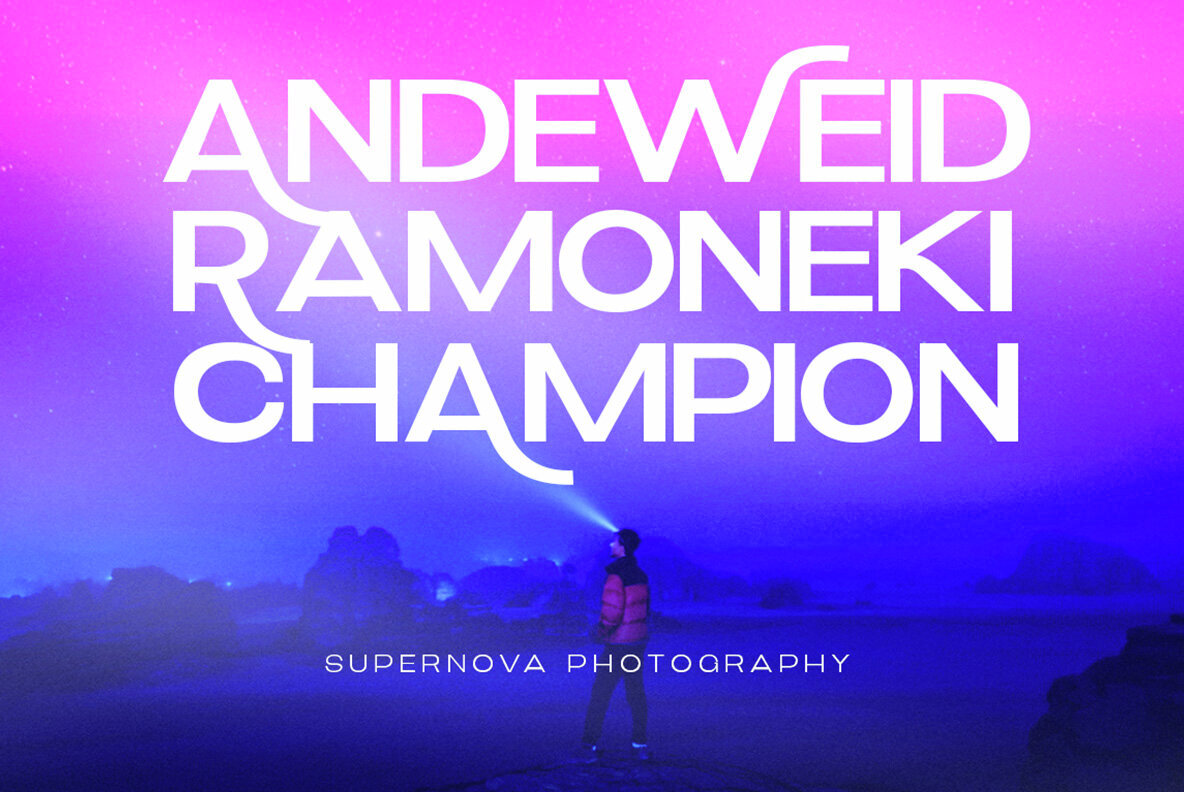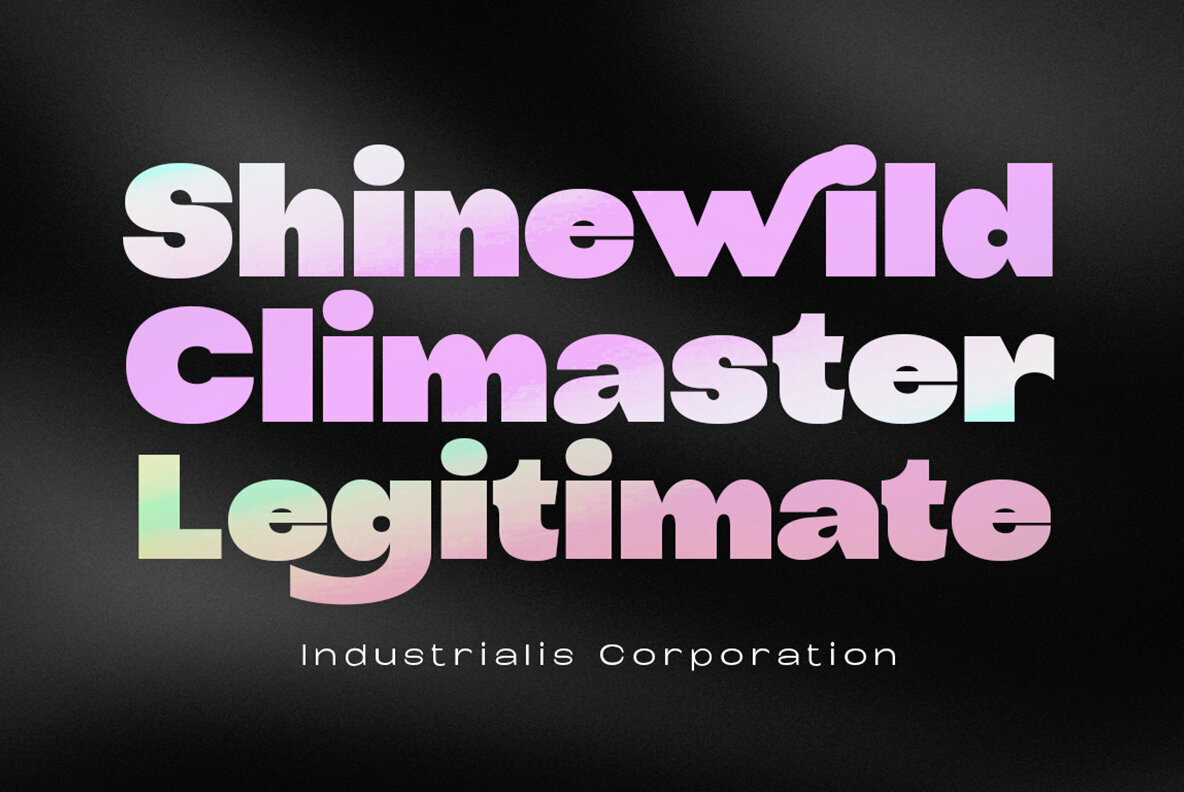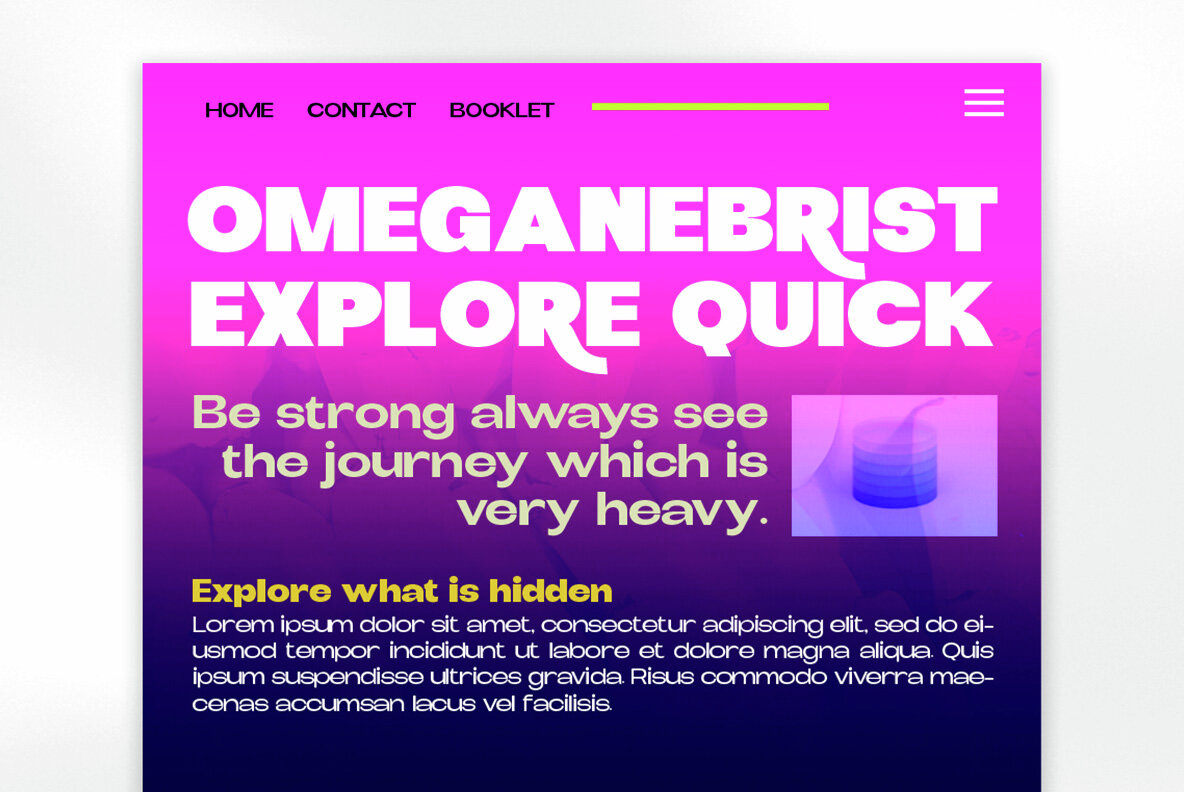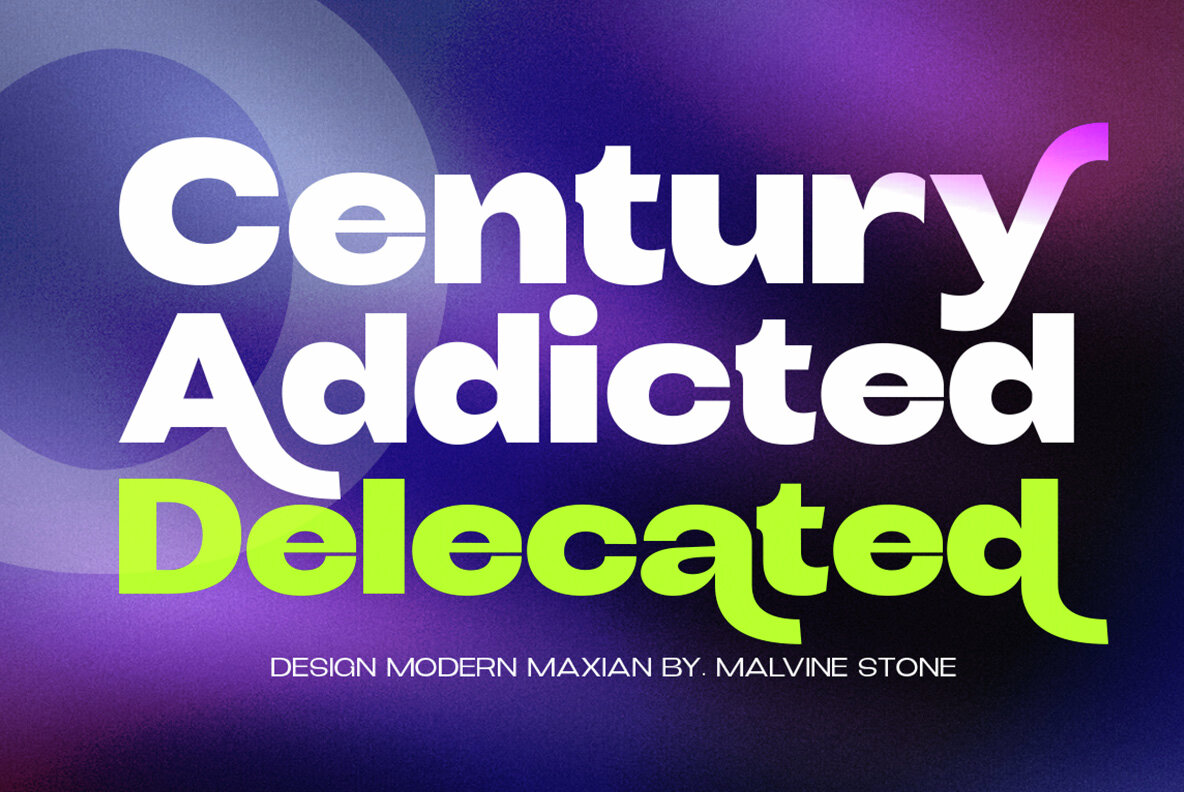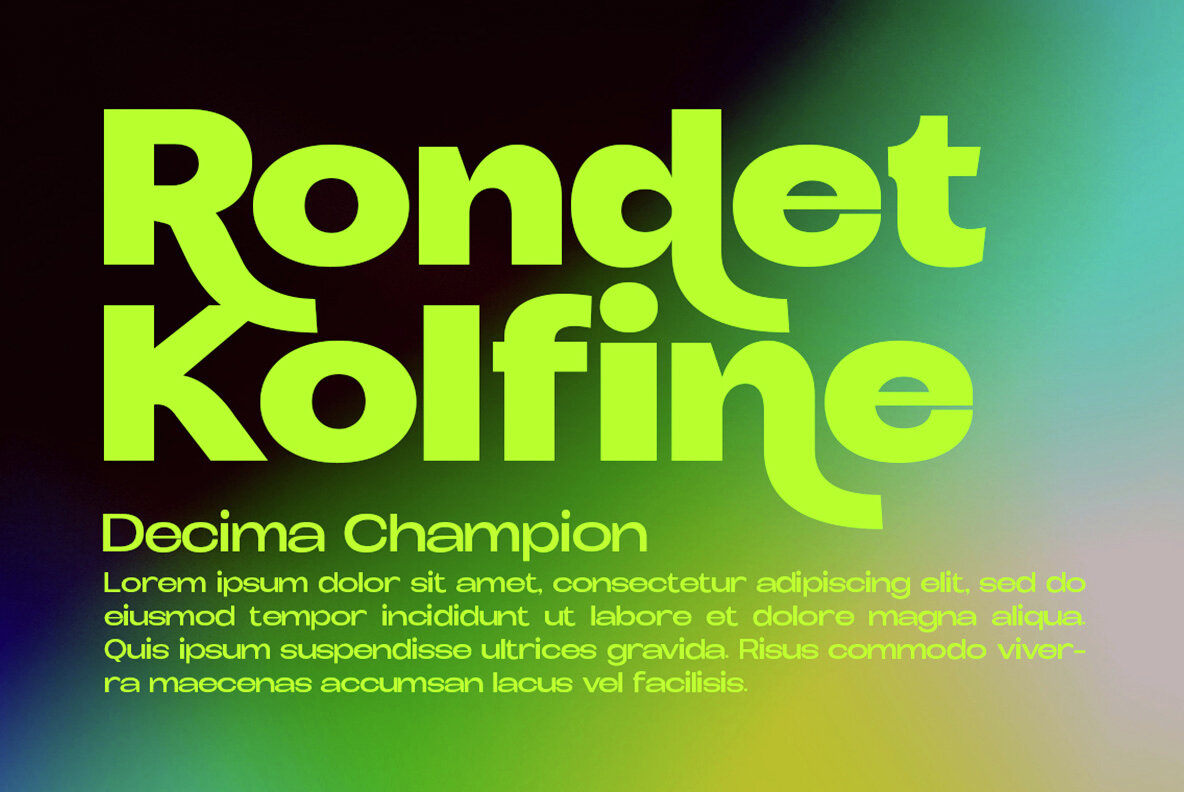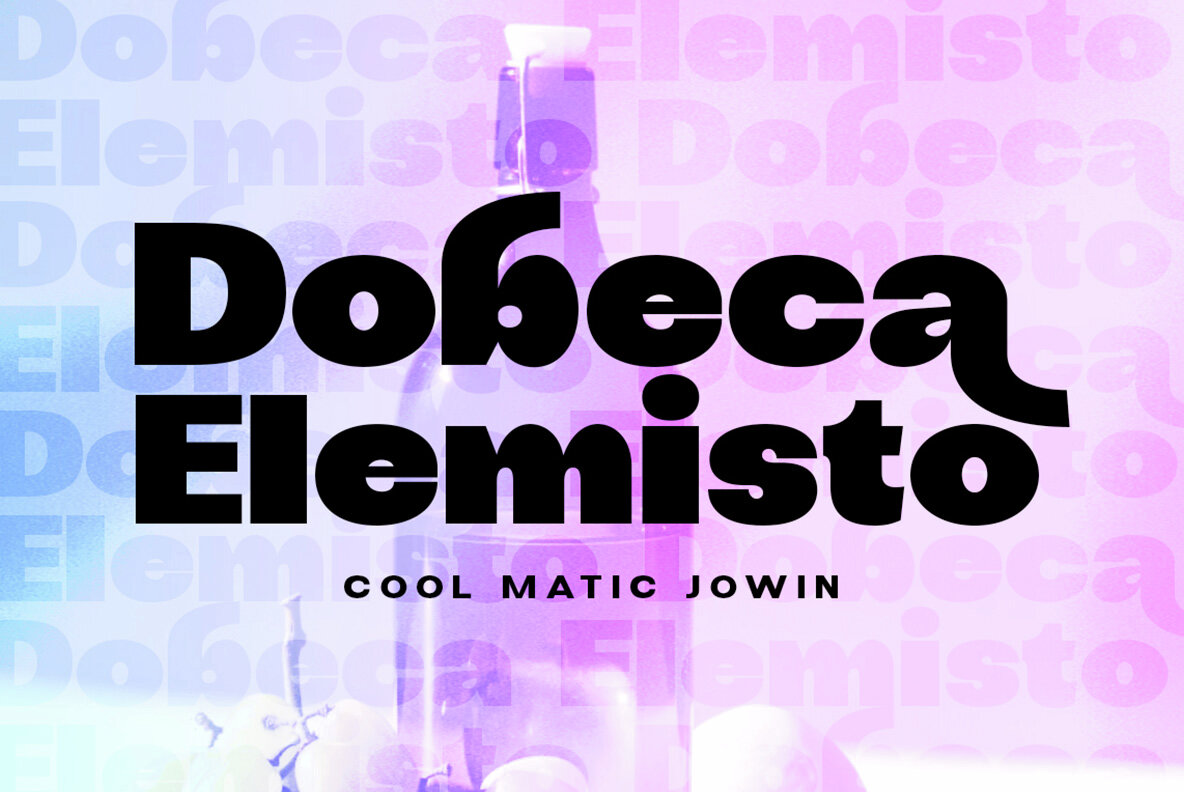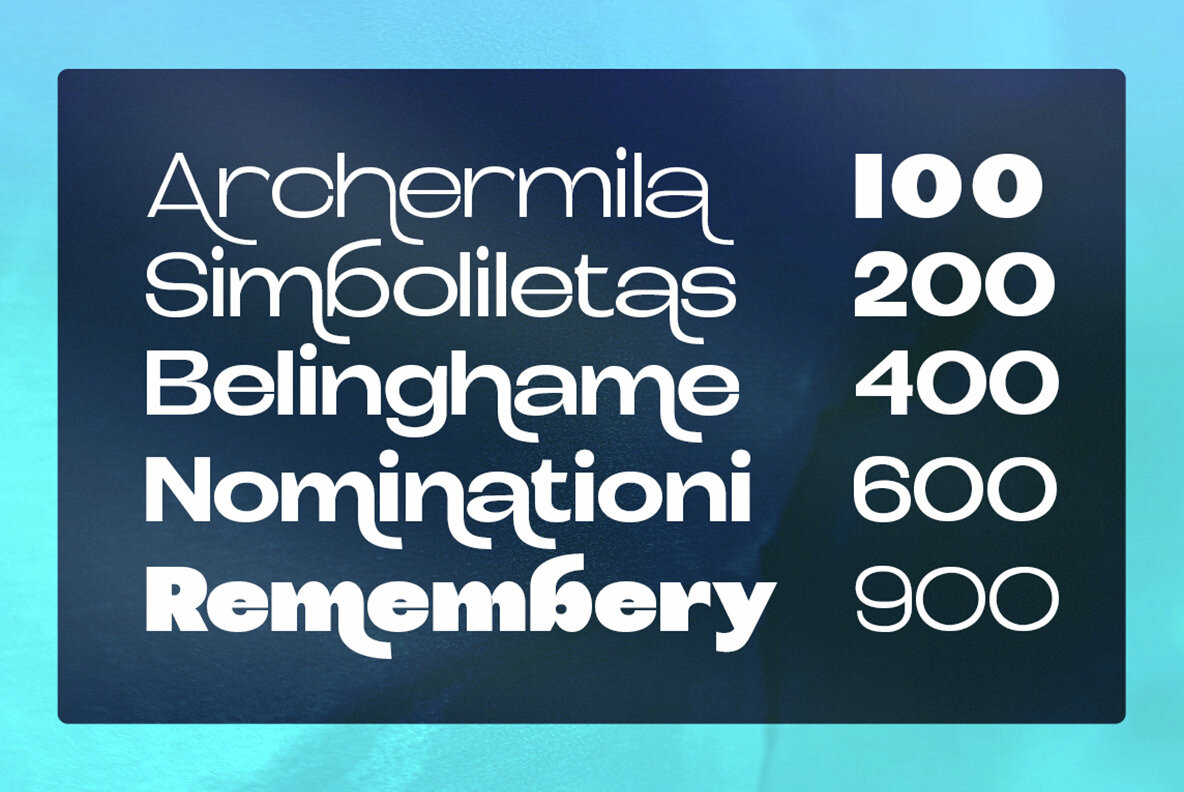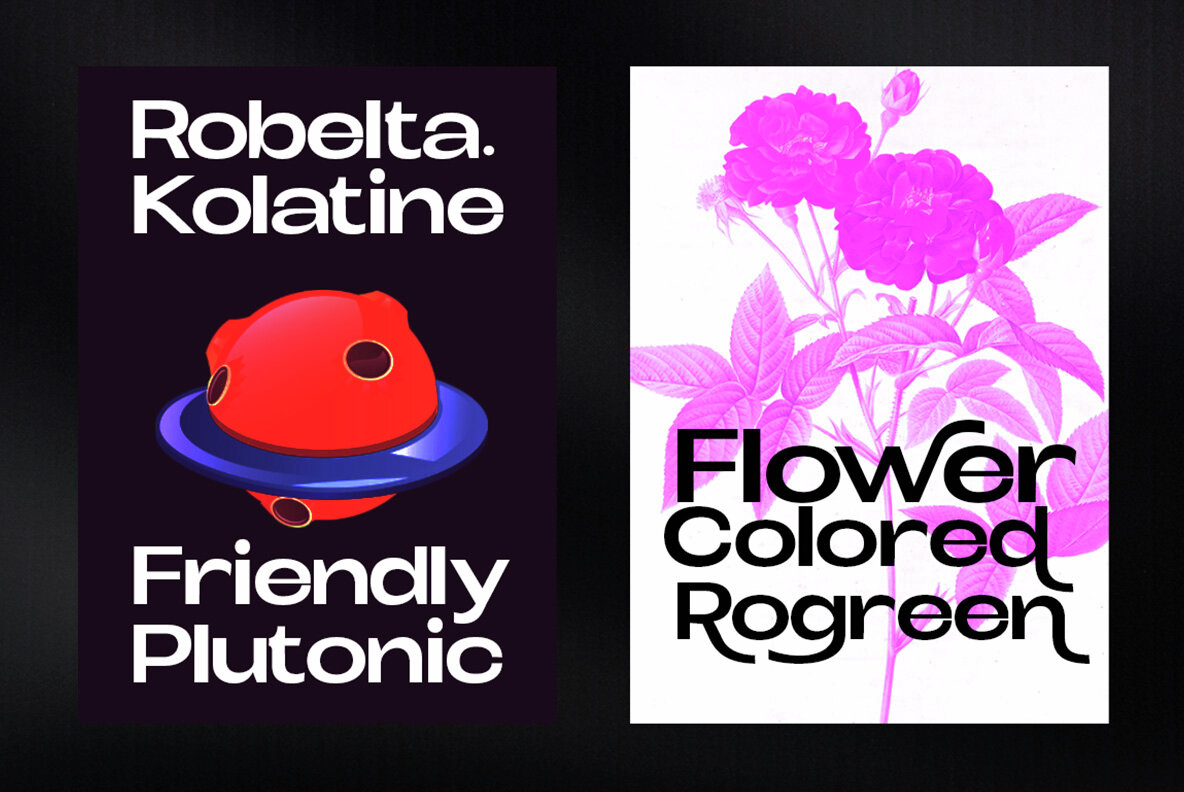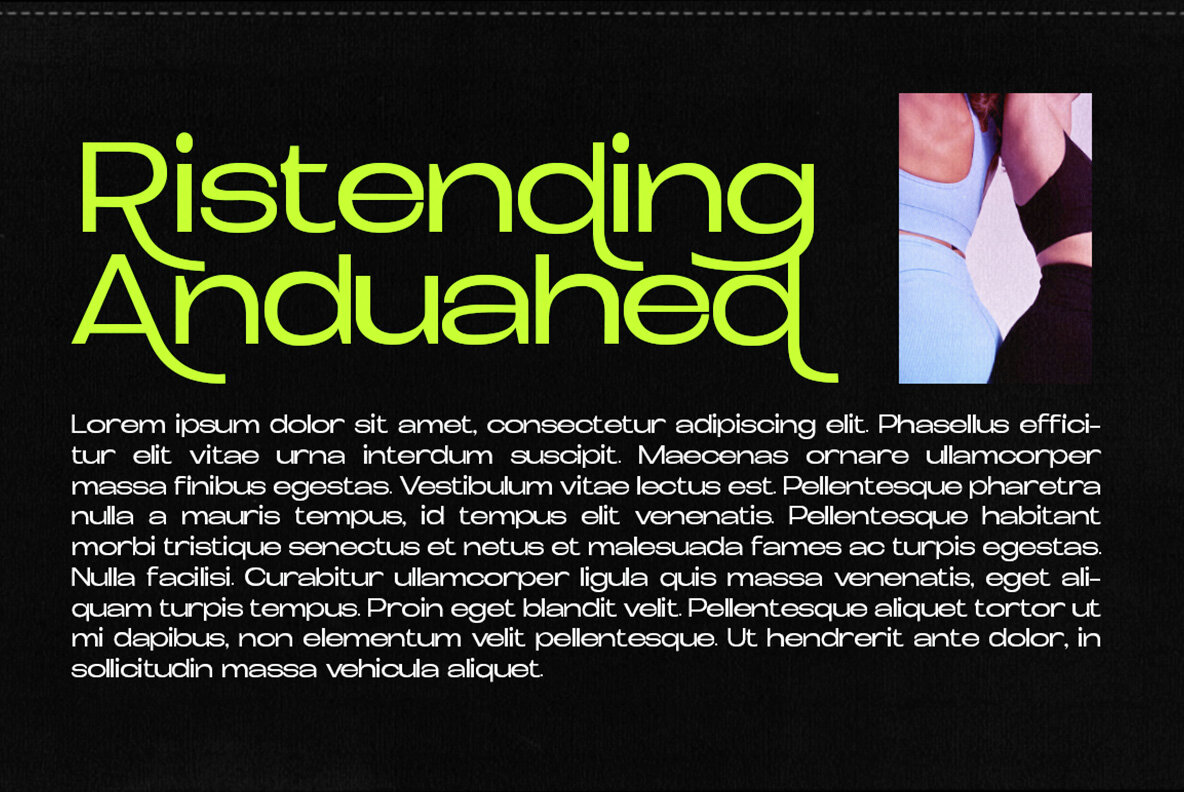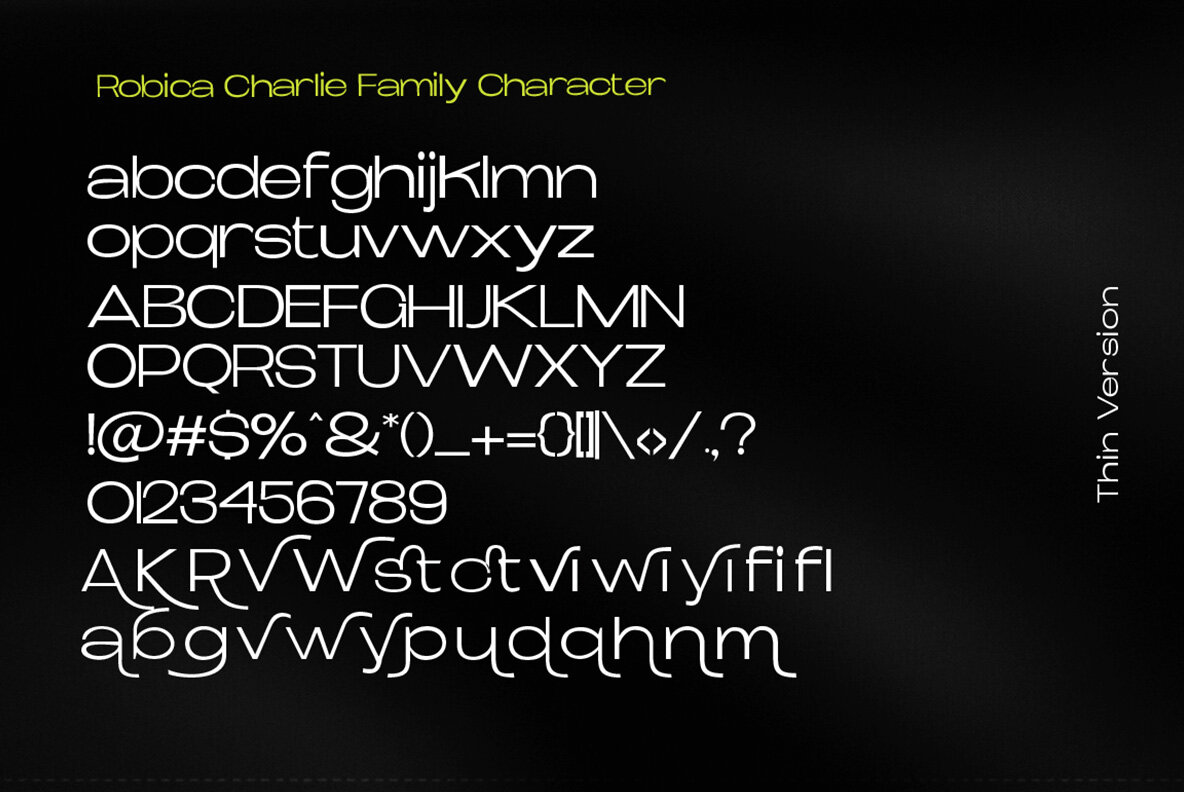
Robica Charlie Font
Robica Charlie by Propertype Foundry merges strong geometric character with modern, sharp cuts, creating a typeface with a distinctive personality. Its bold design, featuring repeating basic shapes, establishes a clear rhythm, enhancing readability and making it suitable for everyday use. Offering nine distinct weights, Robica Charlie is crafted to occupy space effectively while maintaining a smooth and confident performance. The tall X height and robust capitals ensure clear visibility across all weights, which have been optically corrected for easier reading. A consistent tilt angle of 12° adds to its expressive character. With a Modern Expanded style, Robica Charlie presents a plethora of applications, making it ideal for:Robica Charlie: Dynamic Geometric Typeface
Versatile Weight Variety
Modern Expanded Style